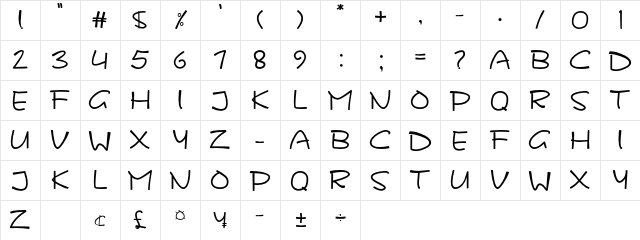
MANOSKOPE Bold
Design Context for MANOSKOPE Typeface
MANOSKOPE is a composed and adaptable typeface that performs quietly and consistently across a wide range of design contexts. Its bold stroke weight gives it real presence on the page.
Pro Tip: Pair MANOSKOPE with a font of contrasting weight or personality to build a more expressive typographic hierarchy.